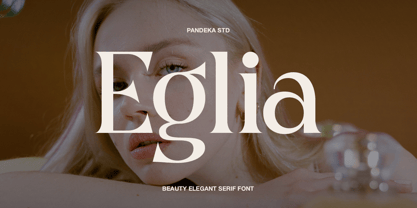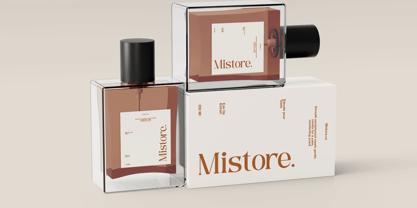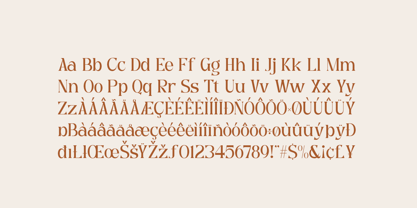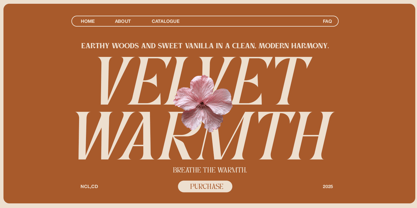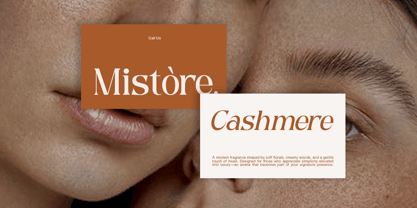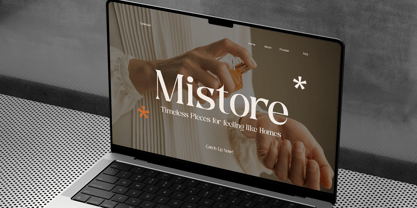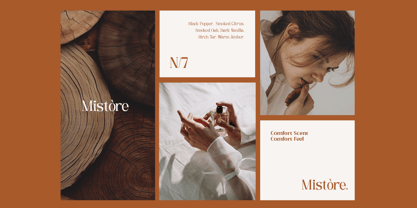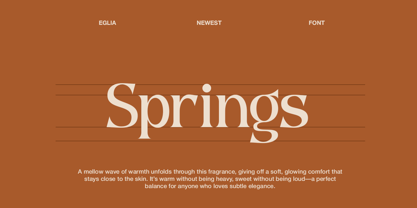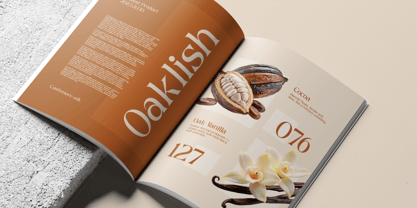
Eglia
von Pandeka Studio
Die Schriftfamilie Eglia wurde von Sagara Nararya entworfen und von Pandeka Studio veröffentlicht. Eglia enthält 2 Stile und Familienpaketoptionen. Mehr über diese Familie
Eglia is a beauty elegant serif font crafted with refined letterforms, graceful curves, and timeless sophistication. Its high-contrast serif design brings a luxurious and feminine impression, making it perfect for beauty branding, skincare packaging, cosmetic labels, fashion editorials, magazines, logos, invitations, premium product packaging, and elegant display projects. The clean structure offers excellent readability while expressing a soft and upscale visual identity.
Available in 2 styles: Regular and Slant, Eglia provides flexibility for both classic layouts and expressive typography. Equipped with multilingual support, this font is ideal for branding, social media graphics, advertising materials, editorial designs, luxury boutiques, perfume brands, wellness products, and modern businesses seeking an elegant and memorable serif typeface.
• 2 Styles: Regular and Slant
Designer: Sagara Nararya
Foundry: Pandeka Studio